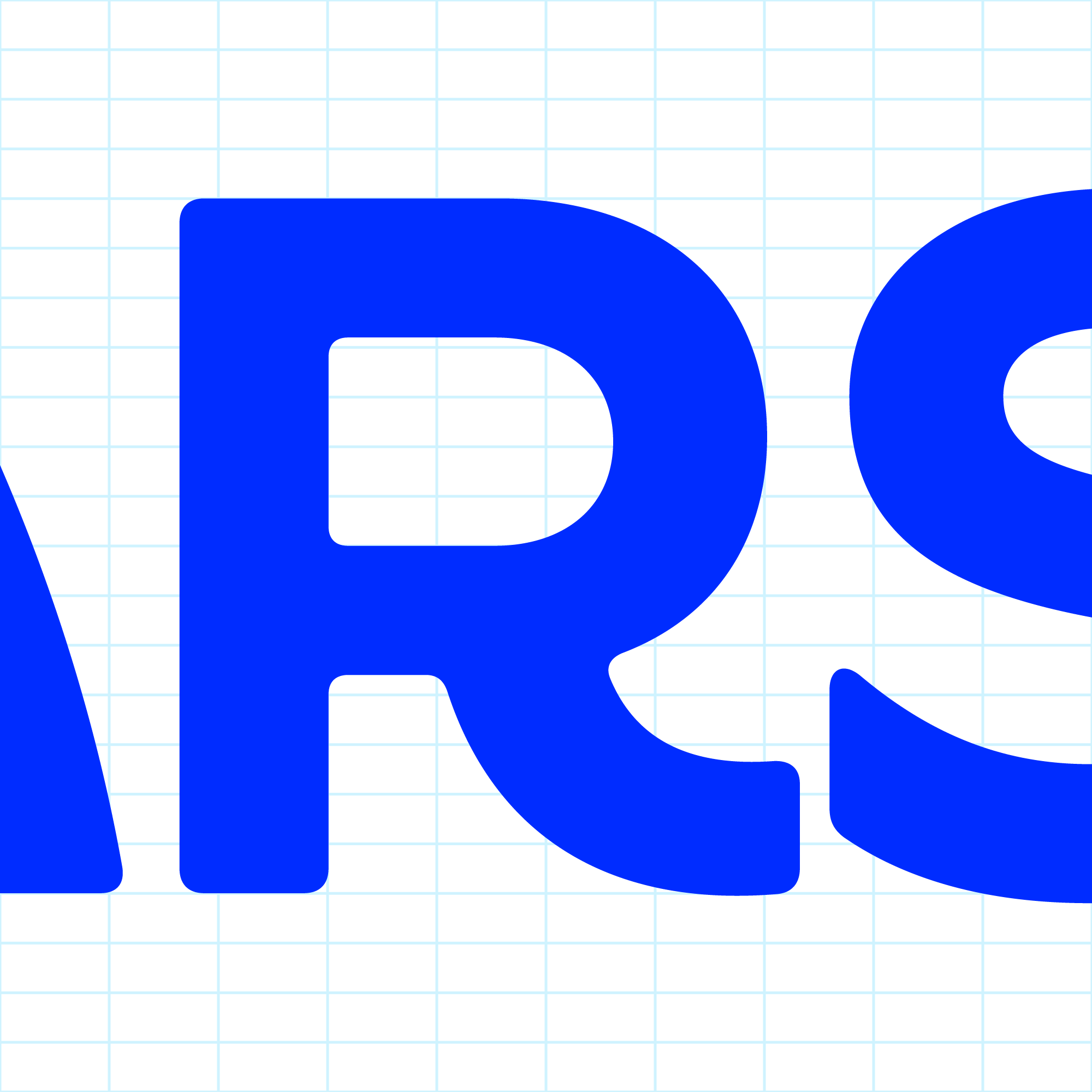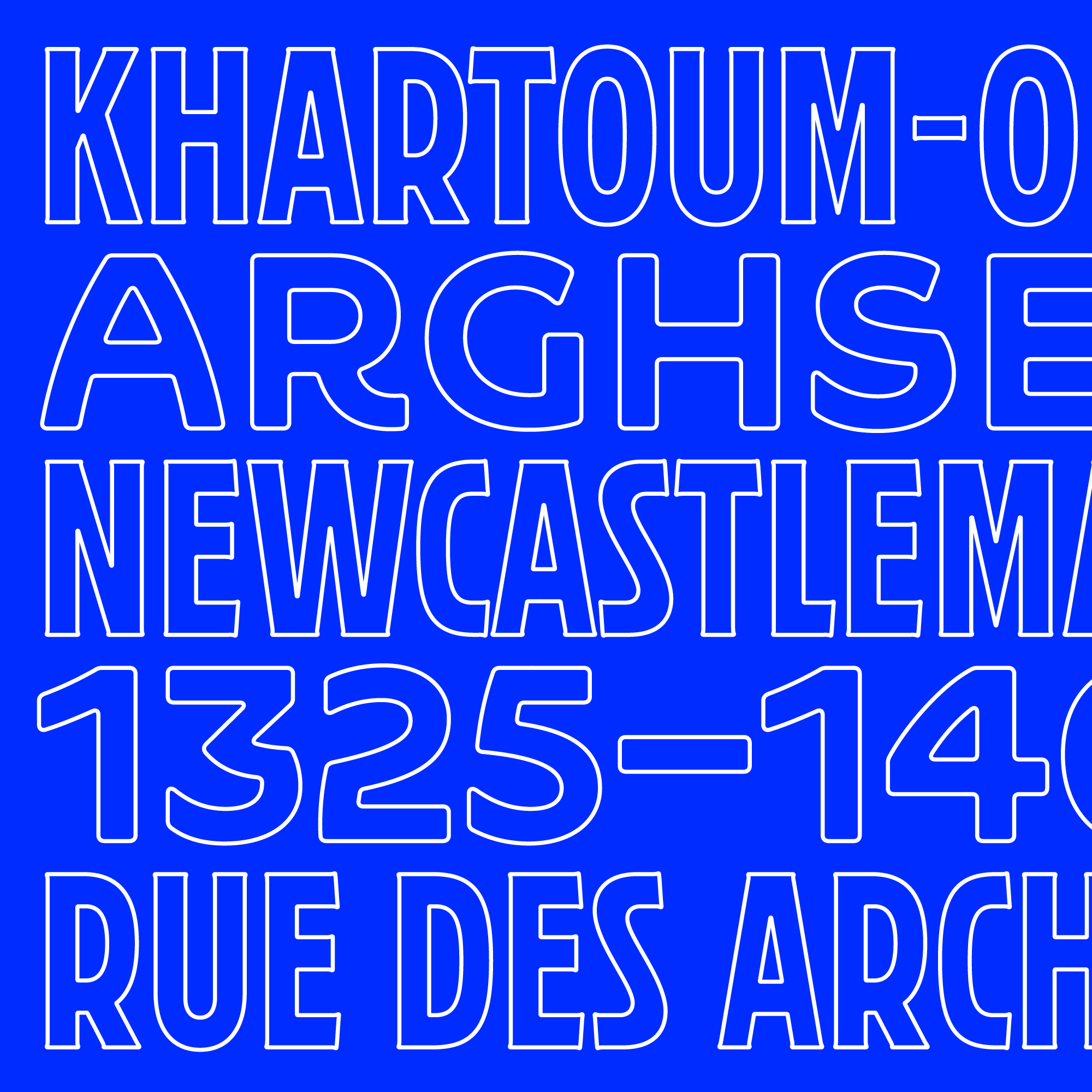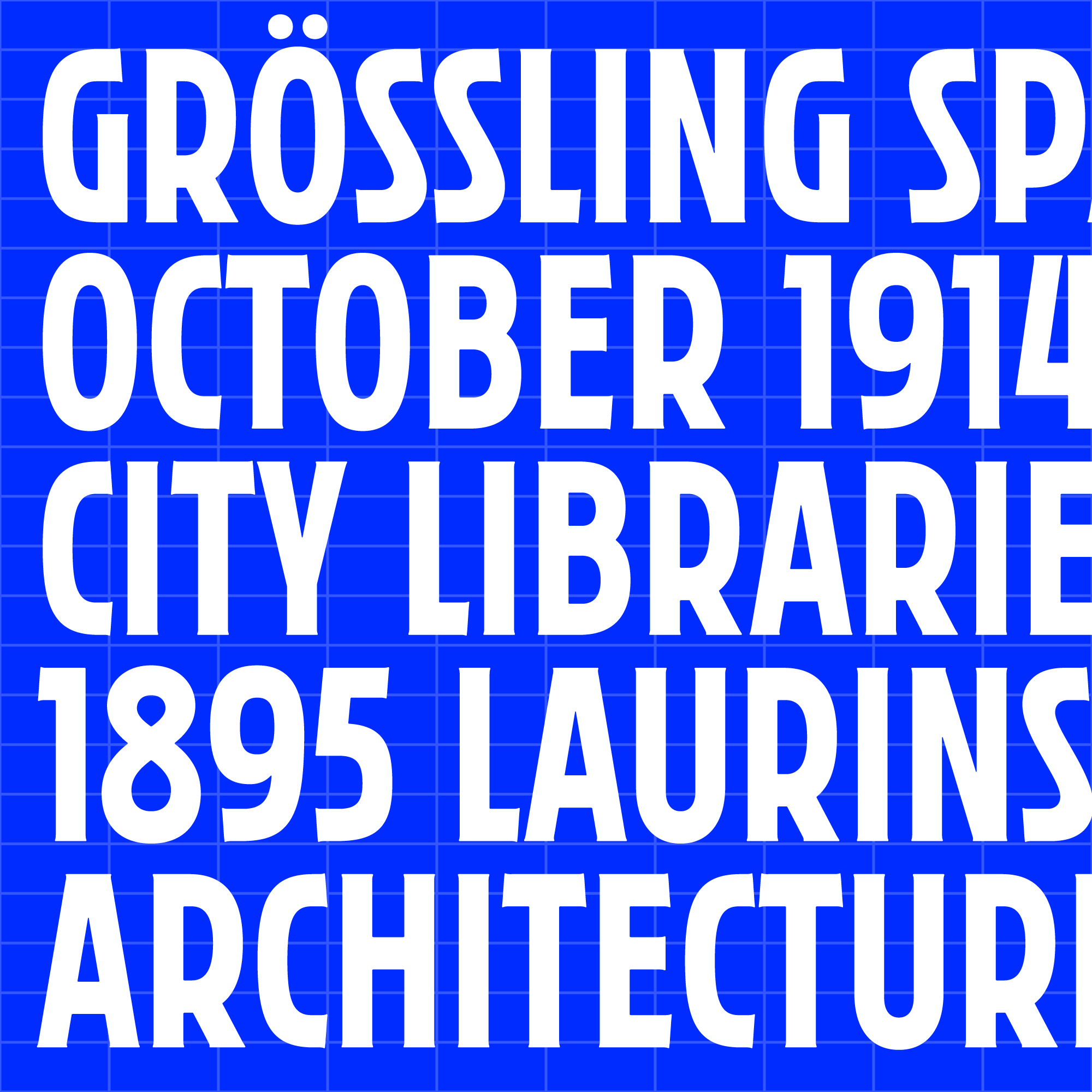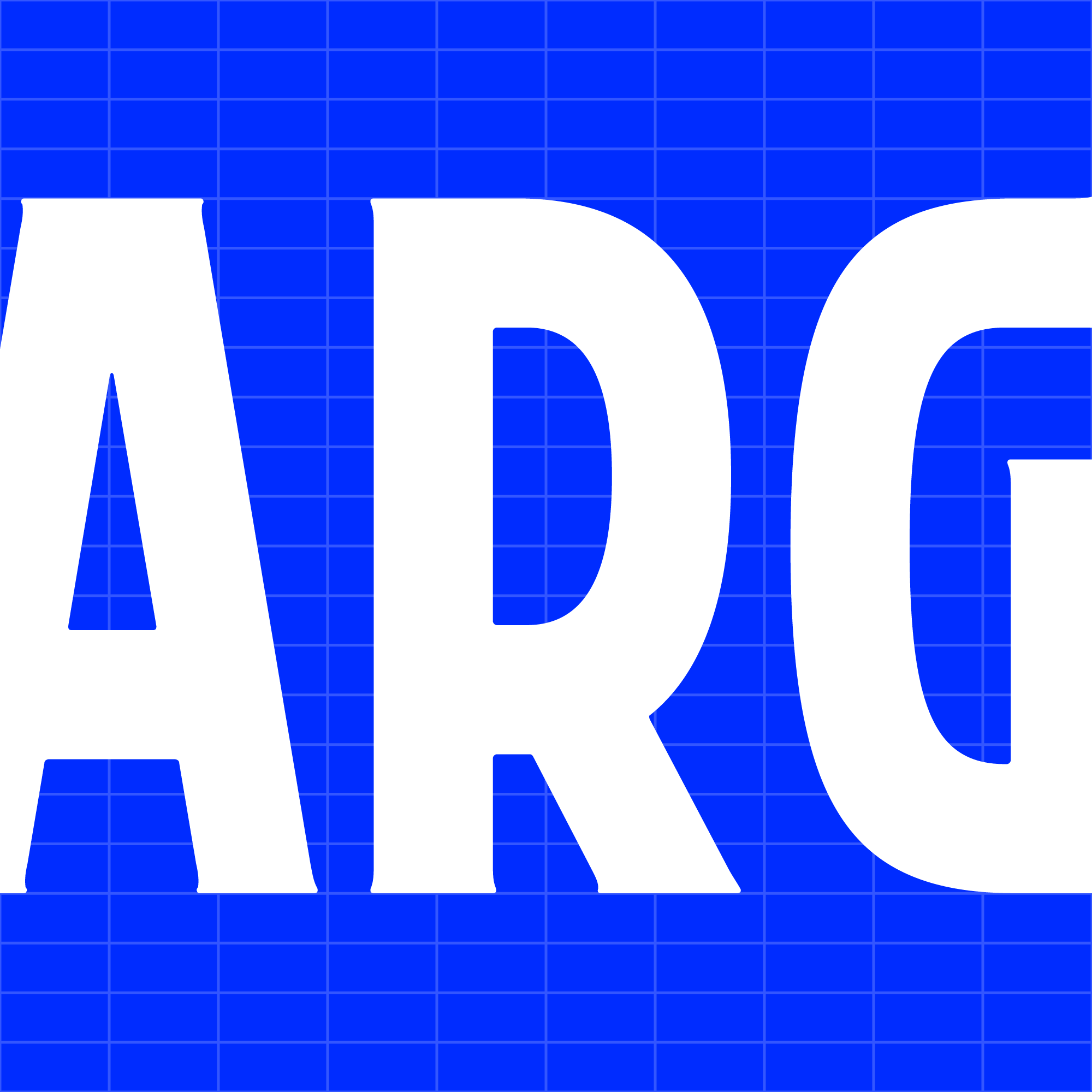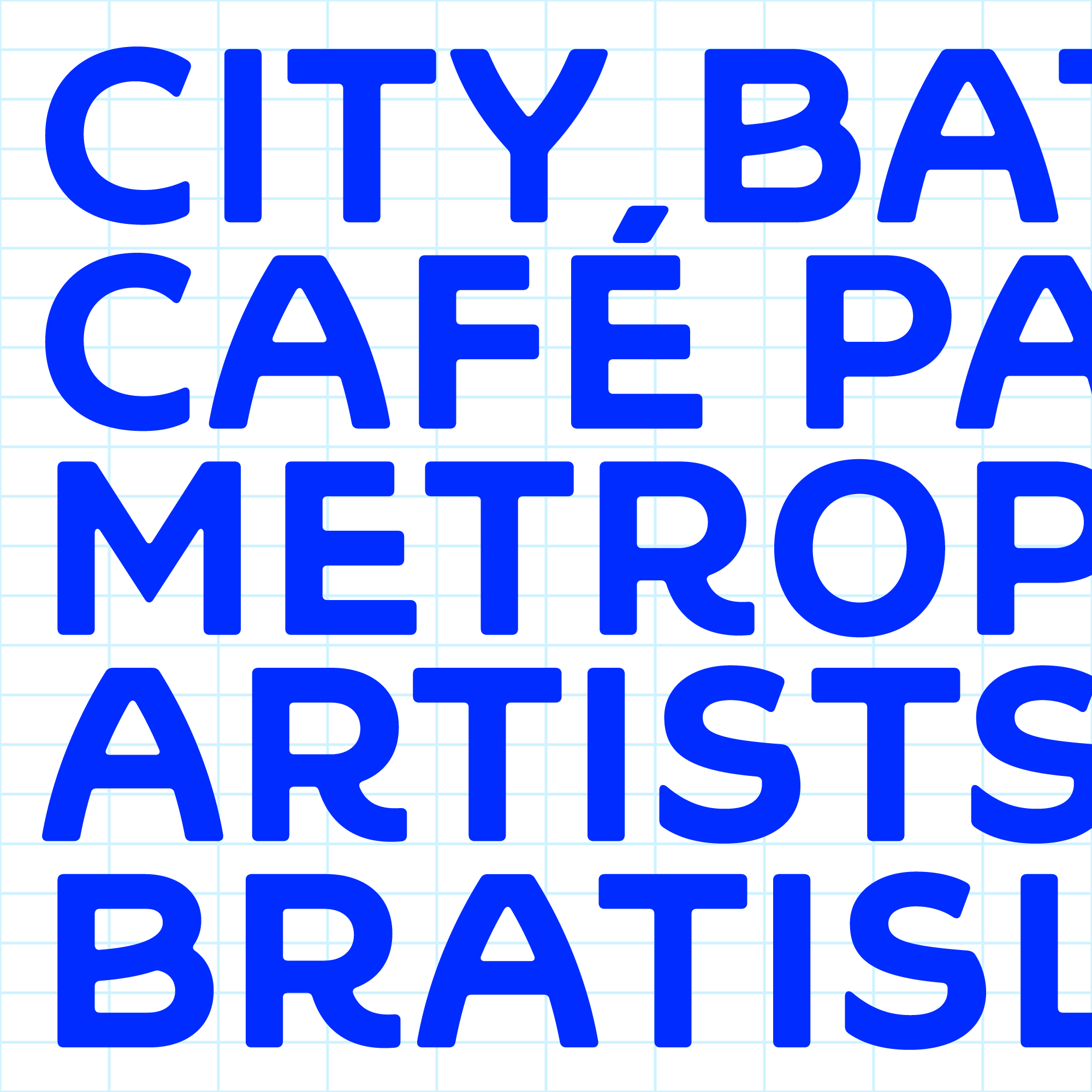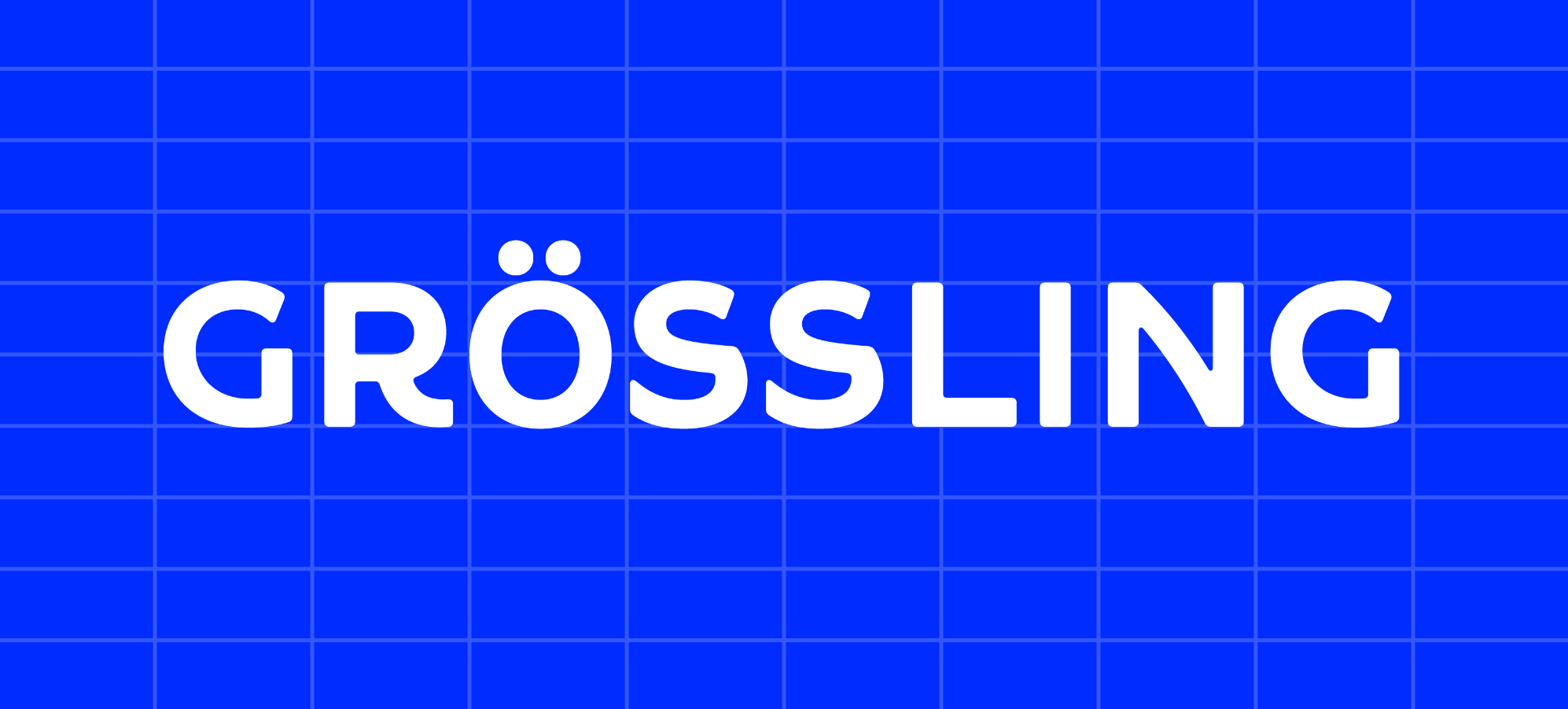
Grössling
Custom Fonts2020
Duo of custom fonts for revived Grössling City Bath in Bratislava. Originally build in 1895, the fonts draw inspiration from actual lettering found on historical photographs with influences from typography from the turn of the century.
AART NOUVEAU
B1895 ARCHITECTURE ARTS & CRAFTS
AMESTSKÉ KÚPELE BRATISLAVA
BCAFÉ PARK LIBRARY
The historical photograph showing a sign with two distinct styles above the portal.